In the competitive world of branding and advertising, typography is a key element that shapes the identity of a brand. Choosing the right font is more than just a stylistic decision, it’s a fundamental part of communicating a brand’s personality, message, and professionalism. The best modern fonts for branding and advertising remain timeless, adapting seamlessly to different eras while maintaining their sophisticated and modern aesthetics. This article explores 10 fonts that stand out for their ability to combine elegance, readability, and contemporary design. These fonts are ideal for brands that want to make a strong visual statement while staying relevant in the ever-evolving design landscape.
1. Pyra Maze Geometric Font
With its geometric design and clean, structured appearance, Pyra Maze is the epitome of modernity in typography. Its sharp edges and smooth curves offer a sleek and tech-driven aesthetic, making it a go-to choice for tech companies and digital startups. Pyra Maze is highly versatile, allowing it to be used effectively across corporate branding, web design, and advertising materials. Its strong geometric shapes contribute to its clarity, making it especially suitable for minimalist design projects. While it excels in professional settings, its structured and rigid lines might not lend warmth or personality for more creative or artistic brands that seek a more approachable feel. Nevertheless, for those aiming for a clean, efficient, and modern design, Pyra Maze remains one of the best modern fonts for branding and advertising.
2. Garis Lengkung Color Font
Offering a striking contrast to more traditional designs, Garis Lengkung is a colorful, playful font that merges bold curves with a dynamic color scheme. Its vibrant appearance makes it perfect for brands seeking to infuse energy and creativity into their visual identity. This font works particularly well for event promotions, creative agencies, and lifestyle brands targeting a younger demographic. While it undoubtedly adds a fun and energetic touch to any design, its boldness may be overwhelming in formal or corporate contexts, where a more refined and minimalist approach is typically preferred. Still, for projects that require bold, attention-grabbing typography, Garis Lengkung is one of the best modern fonts for branding and advertising, offering a fresh and vibrant aesthetic that stands out from the crowd.
3. Conventri Modern Font
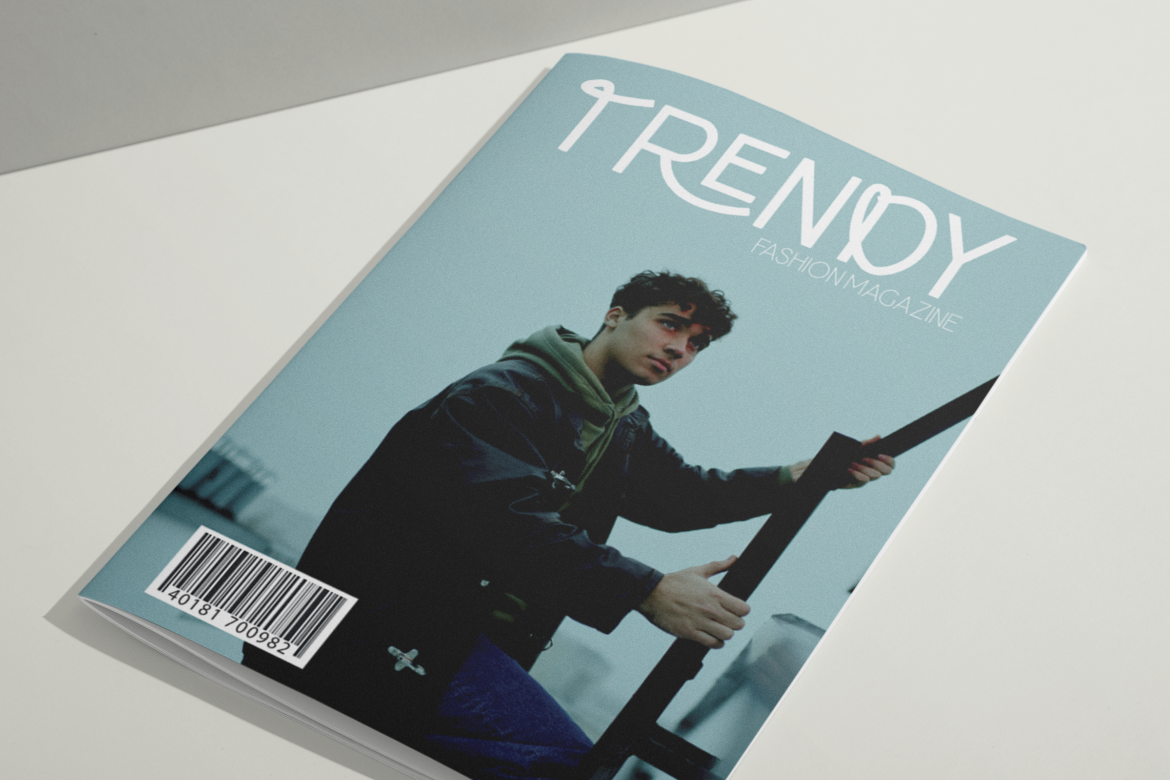
The Conventri Modern Font offers a sophisticated balance of sharp edges and fluid curves, creating a sleek and refined appearance. Its contemporary design makes it ideal for luxury brands, high-end products, and corporate marketing campaigns. Conventri’s elegance and clarity make it an excellent choice for business branding, digital marketing, and premium services. It exudes professionalism while still maintaining a modern edge, which makes it perfect for business cards, websites, and advertisements. However, its polished and clean-cut appearance might feel too impersonal for brands seeking a more distinctive or expressive style. Despite this, Conventri’s versatility and timeless elegance make it one of the best modern fonts for branding and advertising, especially for companies that want to convey a refined image.
4. Flece Display Modern Sans Font
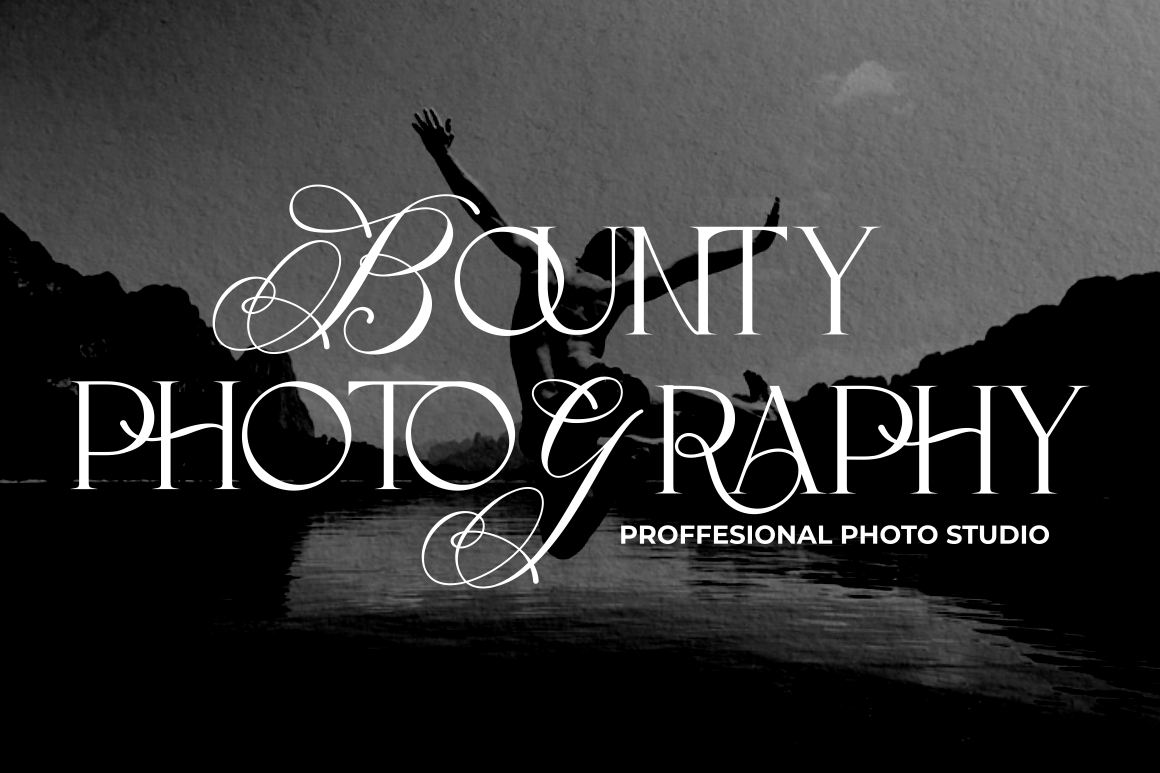
Flece is a bold sans-serif font with an unmistakable modern flair. It blends simplicity and strength, making it ideal for headlines, advertisements, and web design. Flece is especially effective in digital media, where sharp edges and bold contrast can create an impactful visual presence. Its clean lines and minimalist aesthetic make it highly legible, which is a vital quality in the fast-paced world of advertising and branding. While Flece offers a sleek and contemporary design, its boldness may not be suitable for brands looking for subtlety or elegance. Instead, Flece works best for projects that require impactful typography to catch the viewer’s attention instantly. For any bold, modern branding project, Flece stands out as one of the best modern fonts for branding and advertising.
5. Gilded Glint Elegant Serif Font
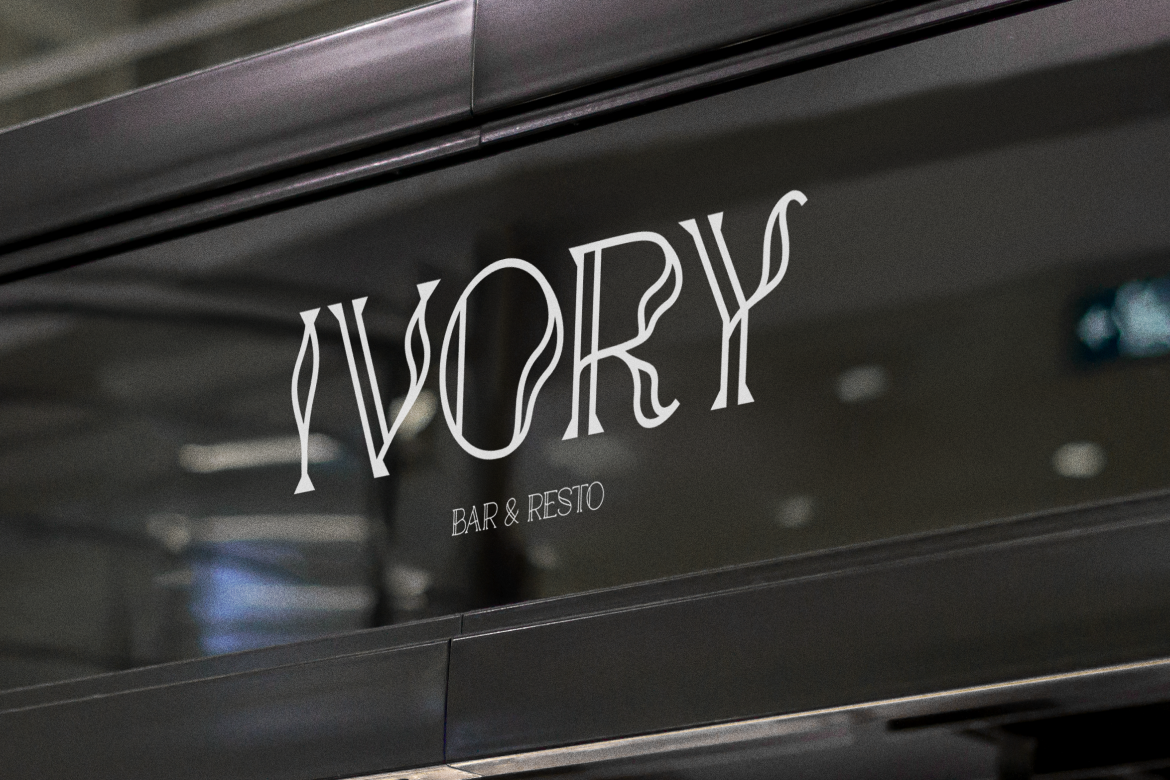
Gilded Glint is a serif font that effortlessly blends elegance with modern sophistication. Its refined serifs and clean lines offer a luxurious feel, making it perfect for premium brands, luxury goods, and high-end marketing. Whether used in corporate branding, fashion advertising, or editorial design, Gilded Glint’s classic appeal helps convey trust and professionalism. Its timeless beauty allows it to remain relevant across different eras of branding, adapting seamlessly to modern designs. While its traditional serif style might feel more formal for some, it is an excellent choice for high-end products or services seeking to emphasize refinement. Overall, Gilded Glint is one of the best modern fonts for branding and advertising if you’re looking for luxury and sophistication.
6. Firanza Display Classic Serif Font
Firanza offers a classic serif design with a modern twist, featuring clean lines and elegant detailing. Its balanced combination of tradition and innovation makes it suitable for a wide range of design projects, including advertisements, branding, and print media. Firanza works well in corporate settings where a sophisticated and refined appearance is required. It conveys professionalism without being overly rigid, giving brands a contemporary and approachable feel. However, it may not suit brands that want to push the envelope in terms of creativity or unconventional design. For brands that need elegance and timeless appeal, Firanza is undoubtedly one of the best modern fonts for branding and advertising.
7. Violense Stylish Display Font
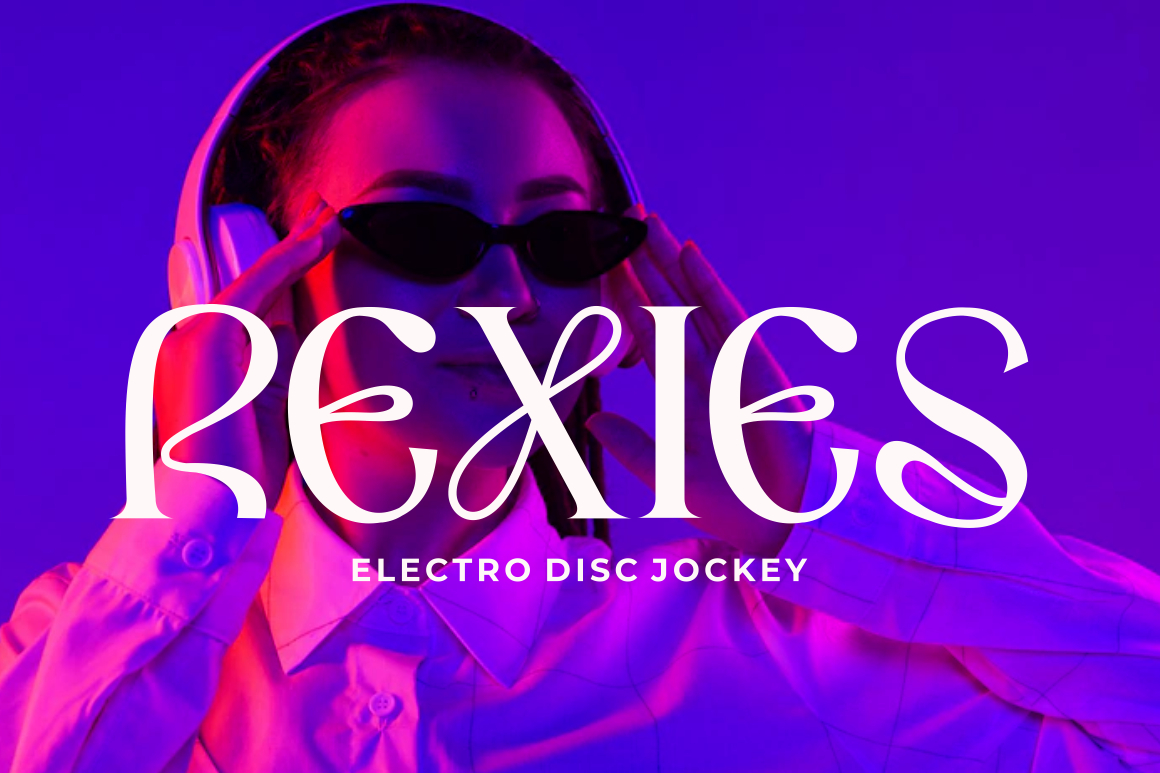
Violense is a bold, stylish display font that grabs attention with its strong character and dynamic lines. Ideal for brands in the fashion, music, and creative industries, Violense’s high-impact design makes it perfect for advertising, posters, and event promotions. It brings a sense of rebellion and individuality, appealing to a younger audience that values creativity and self-expression. While its bold design can make a strong statement, it may not suit brands that aim for subtlety or professionalism. Despite this, Violense remains one of the best modern fonts for branding and advertising when you need to make a bold and lasting impression.
8. Project of Code Display Sans Font
For brands that want to project innovation and futuristic style, Project of Code is an excellent choice. This sans-serif font has sharp, clean lines and a minimalist design that makes it well-suited for digital interfaces, tech branding, and startup websites. Its clear readability and modern feel make it perfect for corporate branding and user interfaces where simplicity and precision are key. However, Project of Code’s technical, straightforward design may not be suitable for brands looking for creative or artistic typography. Nevertheless, it stands as one of the best modern fonts for branding and advertising in the tech industry or any sector requiring clarity and modernity.
9. Virtus Verona Duo Font
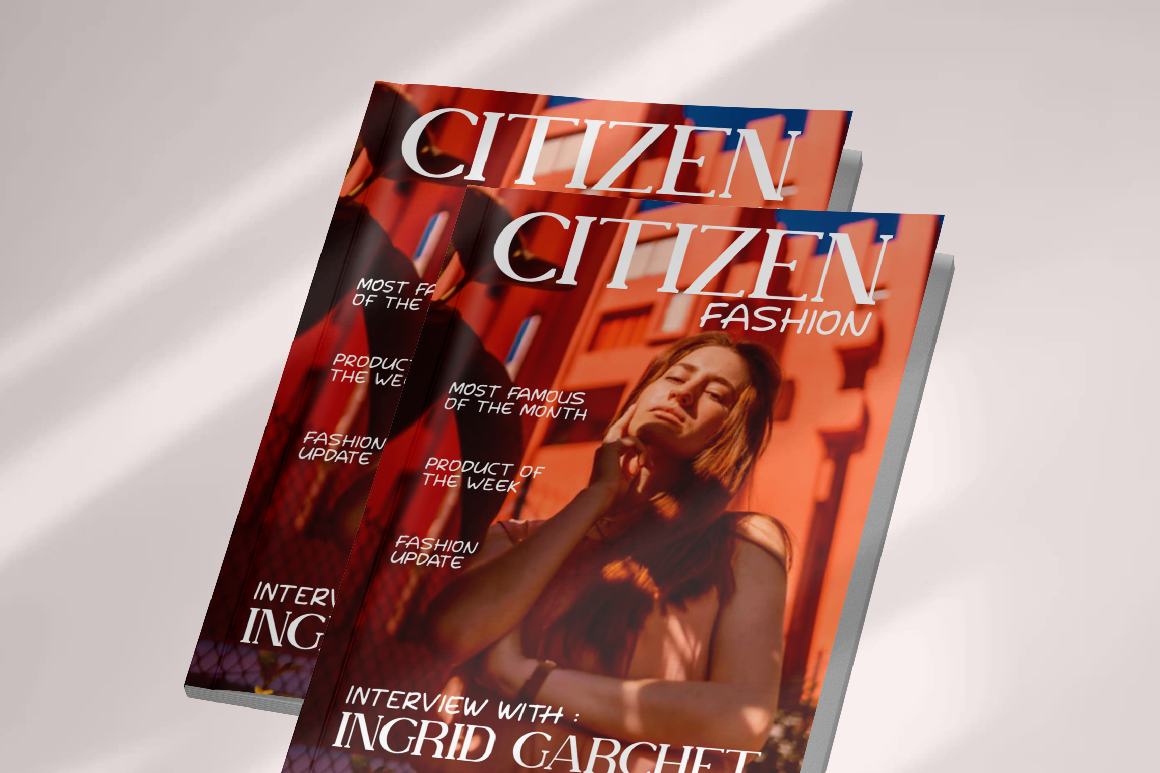
Virtus Verona brings a sophisticated blend of serif and sans-serif styles, making it a highly versatile choice for a variety of branding needs. The font’s classic yet modern appearance makes it perfect for fashion brands, corporate entities, and high-end marketing projects. Its elegant serif details and sleek sans-serif partner work well in logotype designs, advertisements, and website headers. The versatility of this duo ensures that it can be adapted across multiple platforms while maintaining a professional and polished look. However, for brands seeking a more avant-garde or experimental look, Virtus Verona may feel a bit too traditional. Still, for timeless elegance and refined branding, it’s one of the best modern fonts for branding and advertising.
10. Marie Clarie Monoline Script Font
For a personalized, luxurious feel, Marie Clarie is a monoline script font that delivers sleek, flowing curves with a continuous line that gives it a sophisticated, handwritten quality. This font is ideal for premium branding, wedding invitations, and luxury fashion campaigns. Its delicate, elegant design is perfect for conveying a high-end, custom feel to any product or service. However, its monoline style may not have the boldness needed for high-visibility advertisements or posters. Still, for brands seeking refined elegance and personalized charm, Marie Clarie is undoubtedly one of the best modern fonts for branding and advertising.
This comprehensive list of the top 10 Best Modern Fonts provides valuable resources for designers looking to elevate their branding and advertising projects. From vintage-inspired fonts to modern scripts, each bundle offers unique features that make it ideal for different design needs. By understanding the strengths and weaknesses of each, you can choose the right fonts to help your project stand out, whether for print, digital, or branding purposes.